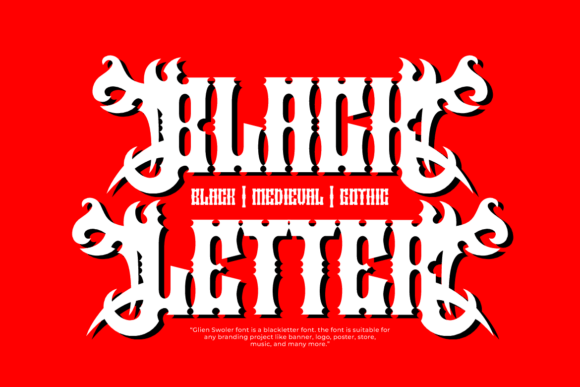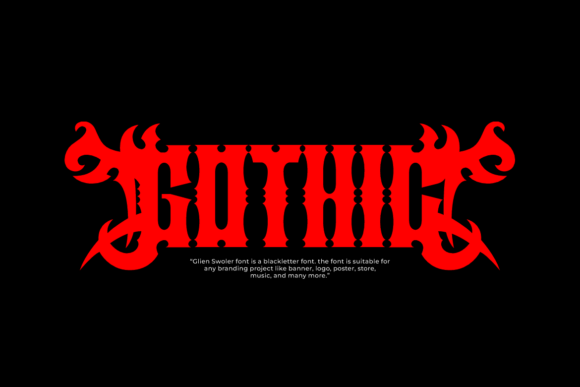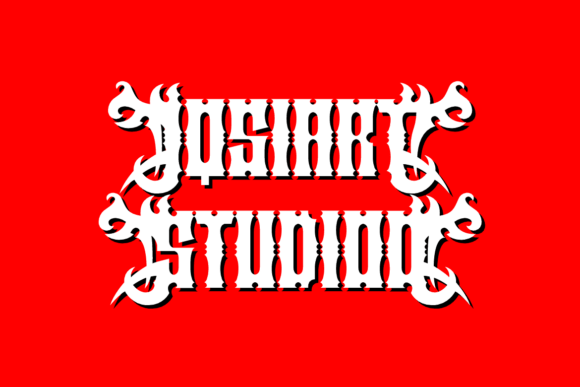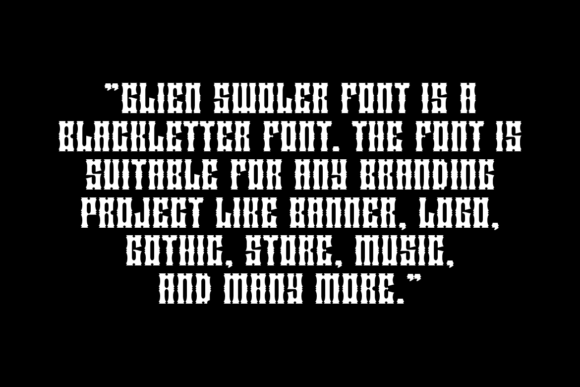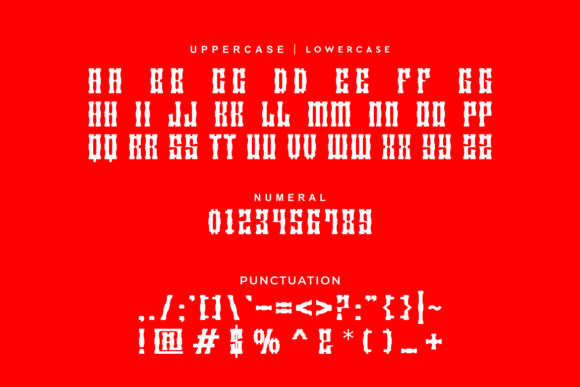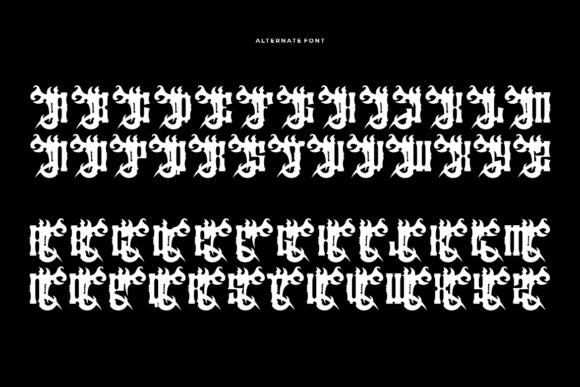
Glien Swoler Font: Unleashing the Power of Dramatic Blackletter Typography
In the realm of typography, few fonts evoke the same level of intensity and drama as Glien Swoler. This striking blackletter font seamlessly merges gothic influences with medieval artistry, resulting in a unique and captivating visual identity. With its sharp ornamental flourishes and heavy, dark aesthetic, Glien Swoler is the perfect choice for designers and crafters seeking to make a bold statement.
The Inspiration Behind Glien Swoler
Glien Swoler draws inspiration from the rich history of medieval art and gothic typography. The font’s design is rooted in the traditional blackletter style, characterized by its dramatic flourishes and intricate details. However, Glien Swoler also incorporates elements of modern typography, resulting in a fresh and contemporary take on a classic style.
Key Features of Glien Swoler
- Dramatic Blackletter Style: Glien Swoler boasts a bold, dark aesthetic that commands attention. Its sharp, angular lines and ornate flourishes evoke a sense of power and intensity.
- Gothic Influences: The font’s gothic influences are evident in its intricate details and ornate decorations. These elements add a touch of mystery and sophistication to the overall design.
- Medieval Artistry: Glien Swoler’s medieval roots are reflected in its classic, timeless feel. The font’s design is reminiscent of ancient manuscripts and illuminated texts.
- Ornamental Flourishes: The font’s ornamental flourishes are a key feature of its design. These decorative elements add a touch of elegance and sophistication to the overall design.
Use Cases for Glien Swoler
Glien Swoler’s versatility and dramatic flair make it an excellent choice for a variety of creative projects. Some potential use cases include:
- Metal Band Logos: Glien Swoler’s heavy, dark aesthetic and gothic influences make it a natural fit for metal band logos. The font’s dramatic flair and ornate details evoke the intensity and energy of heavy metal music.
- Tattoo Designs: The font’s bold, striking design makes it an excellent choice for tattoo designs. Glien Swoler’s intricate details and ornate flourishes can add a touch of elegance and sophistication to any tattoo design.
- Horror Themes: Glien Swoler’s dark, ominous aesthetic makes it a perfect fit for horror-themed projects. The font’s dramatic flair and gothic influences evoke a sense of foreboding and unease.
- Dark Branding: Glien Swoler’s bold, striking design makes it an excellent choice for dark branding and powerful visual impact. The font’s dramatic flair and ornate details can add a touch of sophistication and elegance to any brand identity.
Tips for Using Glien Swoler
To get the most out of Glien Swoler, consider the following tips:
- Use it sparingly: Glien Swoler’s dramatic flair and ornate details can be overwhelming if used excessively. Use the font sparingly to create a bold, striking impact.
- Pair it with contrasting fonts: Glien Swoler’s bold, dark aesthetic can be paired with contrasting fonts to create a visually appealing combination.
- Experiment with different sizes and styles: Glien Swoler’s versatility makes it suitable for a range of sizes and styles. Experiment with different sizes and styles to find the perfect fit for your project.
Glien Swoler is a powerful and dramatic blackletter font that is sure to make a bold statement. With its sharp ornamental flourishes and heavy, dark aesthetic, it’s the perfect choice for designers and crafters seeking to add a touch of intensity and historical flair to their creative projects. Whether you’re designing a metal band logo, tattoo design, or horror-themed project, Glien Swoler is an excellent choice.